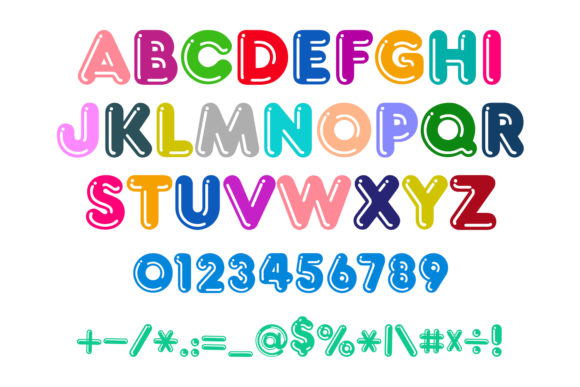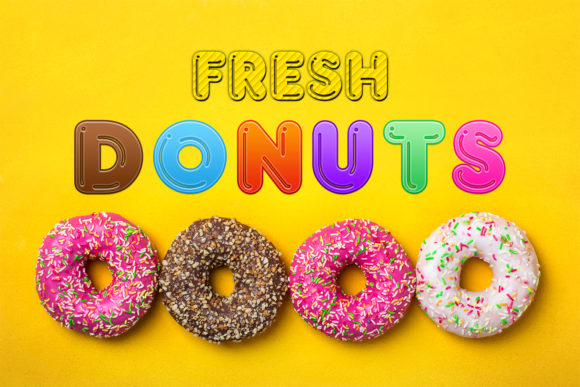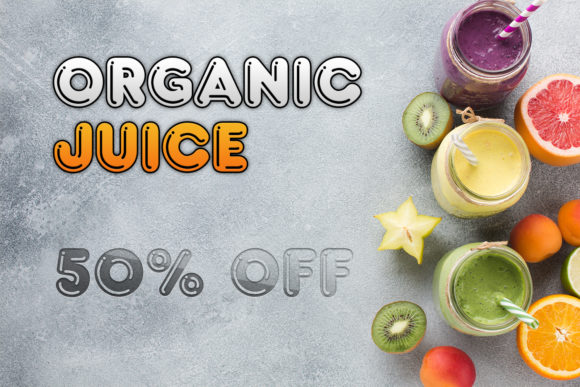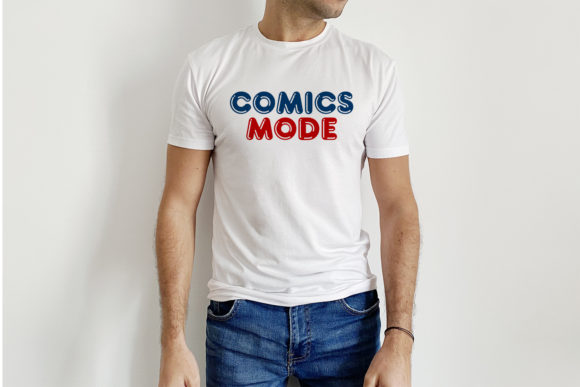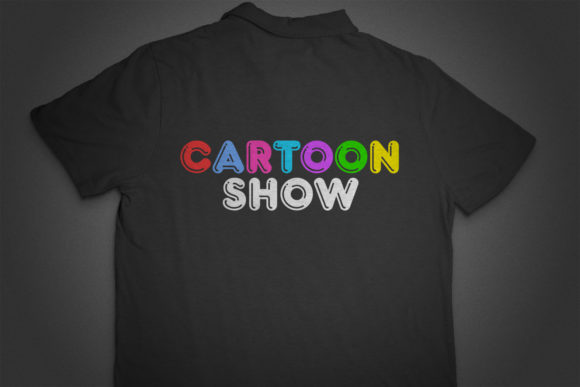
Bubble Round Font: The Sweet and Chunky Lettered Display Font
Are you looking for a font that can add a touch of sweetness and friendliness to your designs? Look no further than the Bubble Round Font! This chunky lettered display font is perfect for designers and crafters who want to create eye-catching and engaging content. In this article, we’ll dive into the features and benefits of the Bubble Round Font and explore how it can elevate your creative projects.
What is Bubble Round Font?
Bubble Round Font is a sweet and chunky lettered display font that is designed to make a statement. Its friendly feel makes it incredibly versatile, fitting a wide range of contexts, from playful kids’ content to creative branding and advertising. The font’s rounded edges and soft curves give it a warm and approachable feel that’s sure to capture the attention of your audience.
Key Features of Bubble Round Font
- Chunky and bold: The Bubble Round Font is a display font that’s designed to make a statement. Its thick and bold lines make it perfect for headlines, titles, and other attention-grabbing elements.
- Friendly and approachable: The font’s rounded edges and soft curves give it a warm and friendly feel that’s perfect for creating a connection with your audience.
- Versatile: The Bubble Round Font is incredibly versatile and can be used in a wide range of contexts, from kids’ content to creative branding and advertising.
- Easily readable: Despite its chunky and bold design, the Bubble Round Font is easily readable, even at smaller sizes.
Benefits of Using Bubble Round Font
So why should you choose the Bubble Round Font for your next project? Here are just a few benefits of using this amazing font:
- Adds a touch of personality: The Bubble Round Font adds a touch of personality and whimsy to your designs, making them stand out from the crowd.
- Perfect for creative projects: Whether you’re working on a creative branding project, a kids’ craft, or a DIY tutorial, the Bubble Round Font is the perfect choice.
- Increases engagement: The font’s friendly and approachable feel can help increase engagement and interaction with your audience.
- Easy to use: The Bubble Round Font is easy to use and can be easily integrated into your designs, even if you’re not a seasoned designer.
How to Use Bubble Round Font
So how can you use the Bubble Round Font in your designs? Here are a few ideas to get you started:
- Headlines and titles: Use the Bubble Round Font to create eye-catching headlines and titles that grab attention.
- Kids’ content: The font’s playful and friendly feel makes it perfect for kids’ content, such as children’s books, educational materials, and kids’ crafts.
- Branding and advertising: Use the Bubble Round Font to create creative and eye-catching branding and advertising materials, such as logos, posters, and flyers.
- DIY projects: The font is also perfect for DIY projects, such as crafting, scrapbooking, and party planning.
In conclusion, the Bubble Round Font is a sweet and chunky lettered display font that’s perfect for designers and crafters who want to create eye-catching and engaging content. Its friendly feel and versatile design make it incredibly versatile, fitting a wide range of contexts. Whether you’re working on a creative branding project, a kids’ craft, or a DIY tutorial, the Bubble Round Font is the perfect choice. So why not give it a try and see how it can elevate your creative projects?